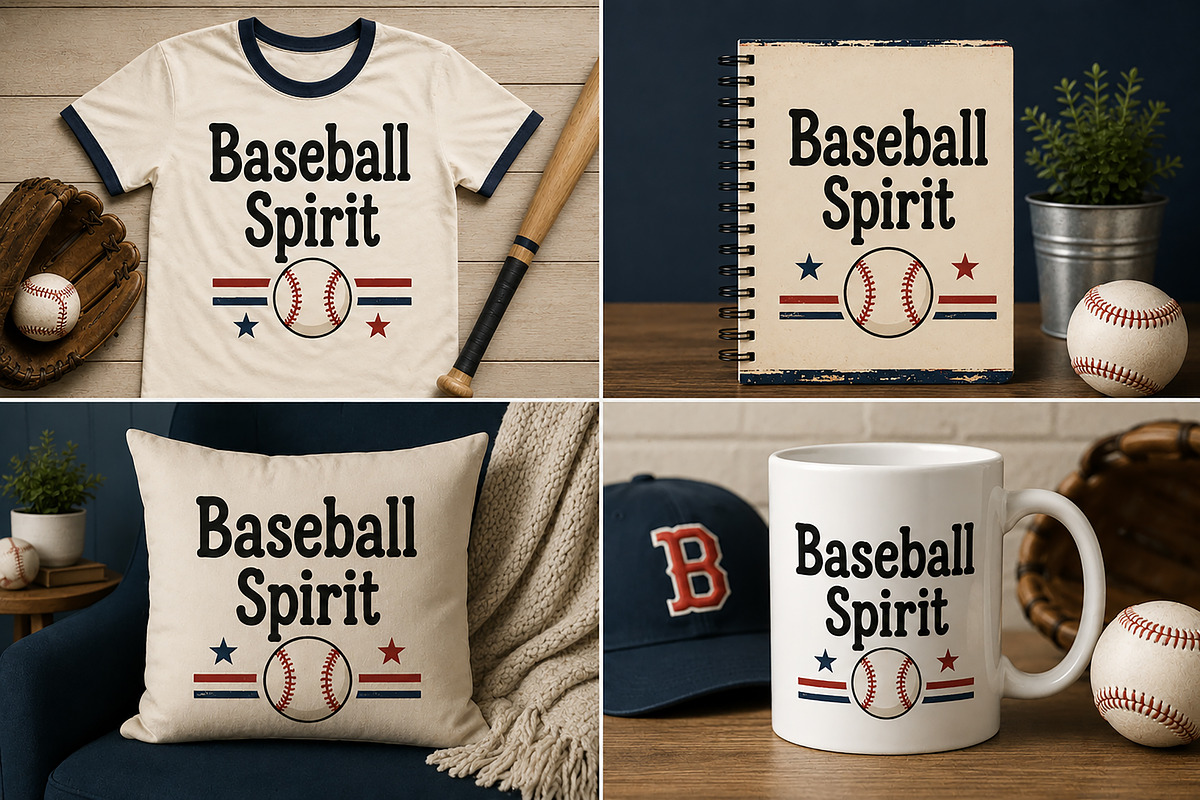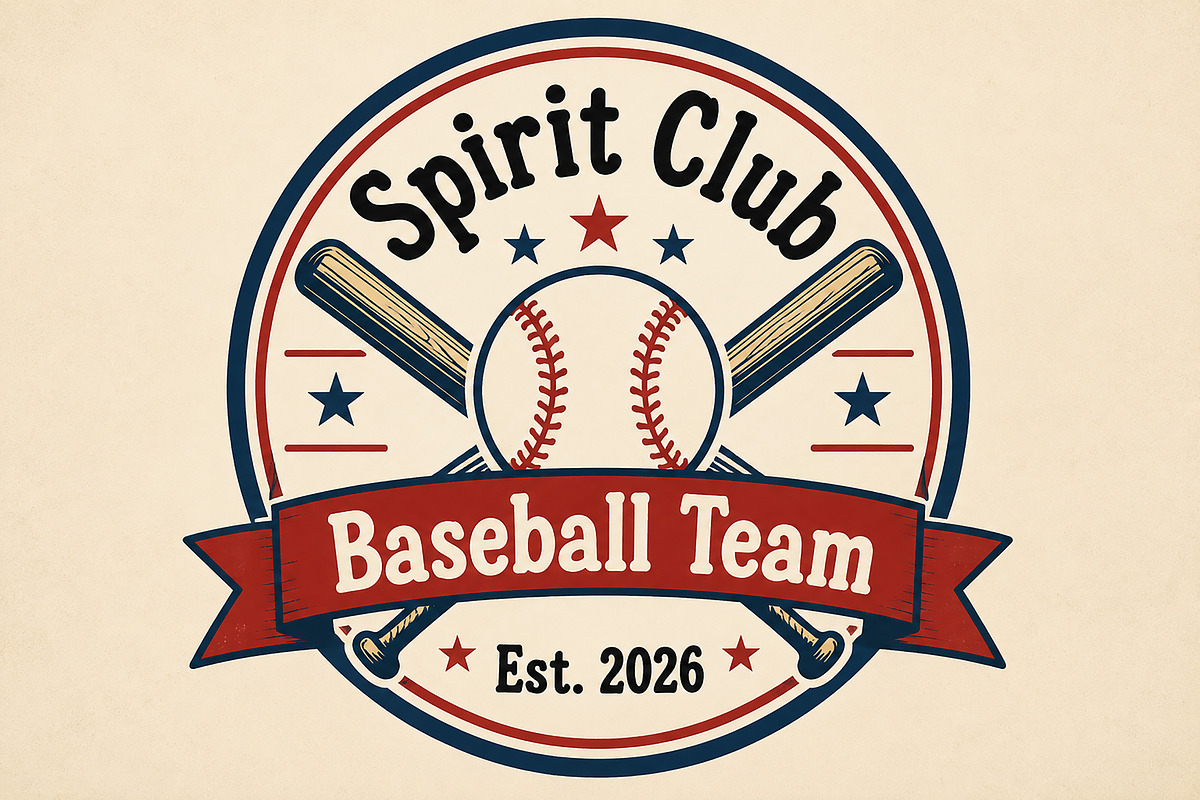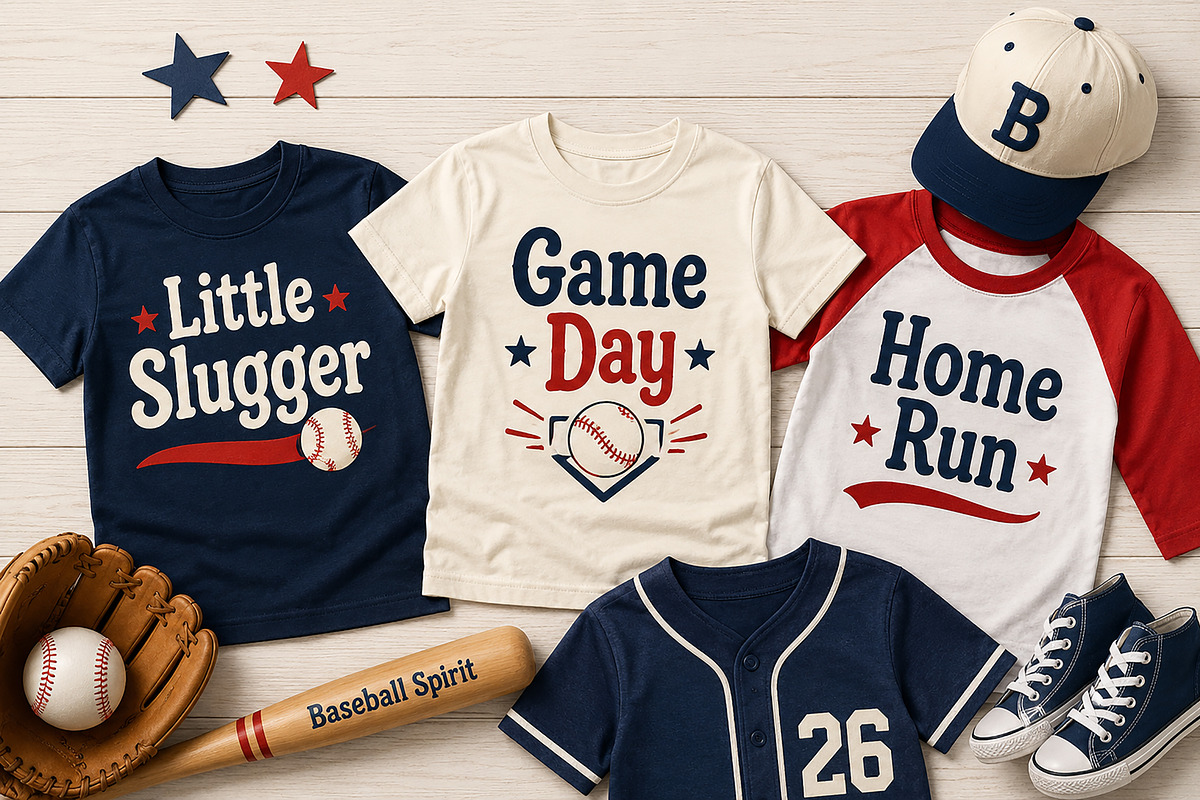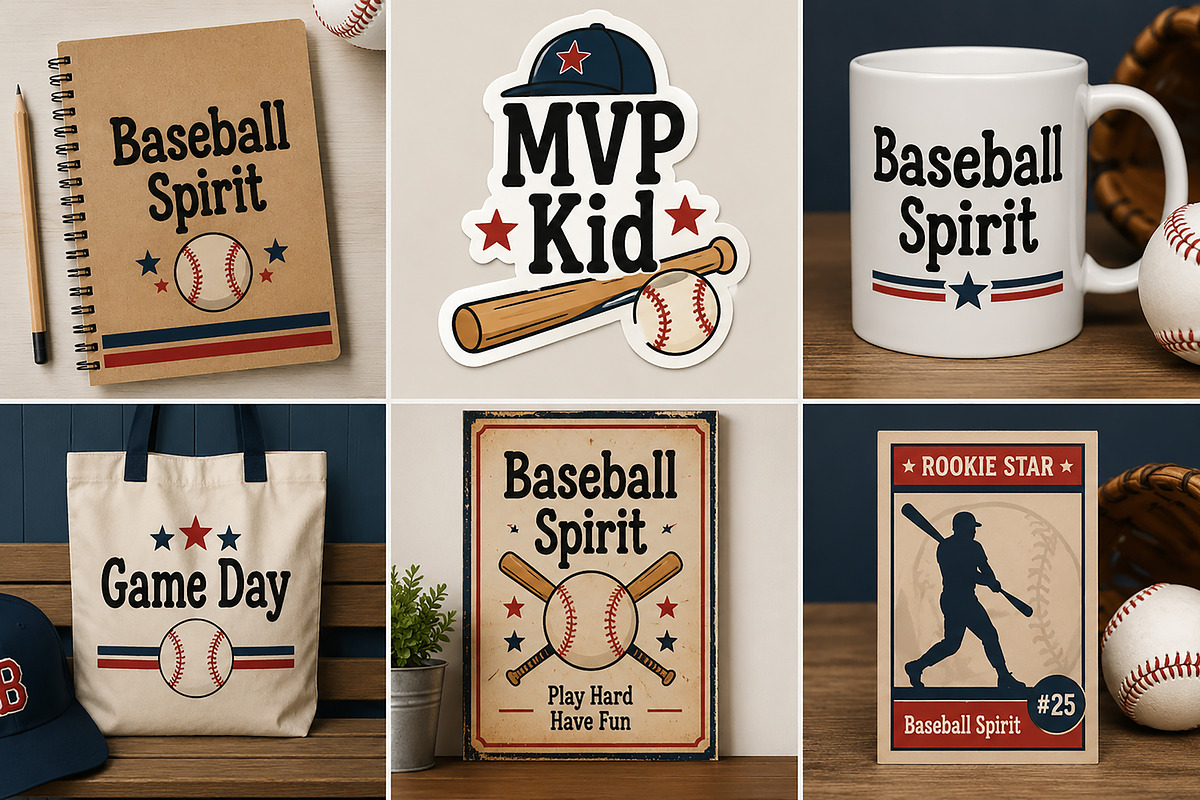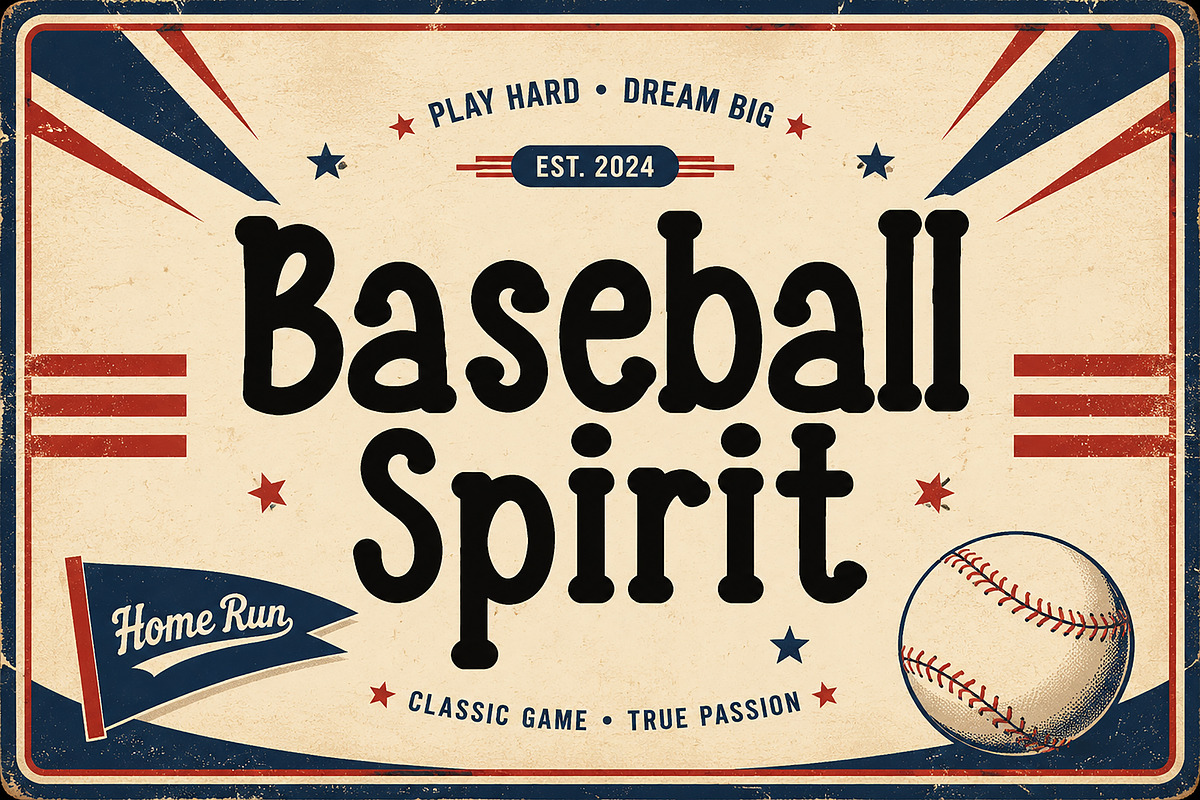
Baseball Spirit
Baseball Spirit – Playful Sports Display Font
Baseball Spirit is a fun, bold, and playful display font inspired by classic baseball culture, team spirit, and vintage sports graphics. Its rounded shapes, friendly character design, and energetic personality make it perfect for sports-themed projects, kids' apparel, Cricut crafts, team logos, game day designs, posters, stickers, merchandise, and branding.
Whether you're creating baseball jerseys, little league graphics, sports event posters, or playful apparel designs, Baseball Spirit delivers a cheerful and memorable look that stands out instantly.
Baseball Team Logos
Kids T-Shirt Designs
Sports Apparel
Cricut & Silhouette Projects
Game Day Graphics
Posters & Flyers
Stickers & Labels
Sports Branding
Merchandise Design
School Sports Events
Baseball Cards
Mug & Tote Bag Designs
DIY Crafts
Children's Products
Uppercase Letters
Lowercase Letters
Easy-to-Read Characters
Fun & Playful Style
Bring the excitement of the ballpark to your creative projects with Baseball Spirit, a playful sports font designed to hit a home run every time!